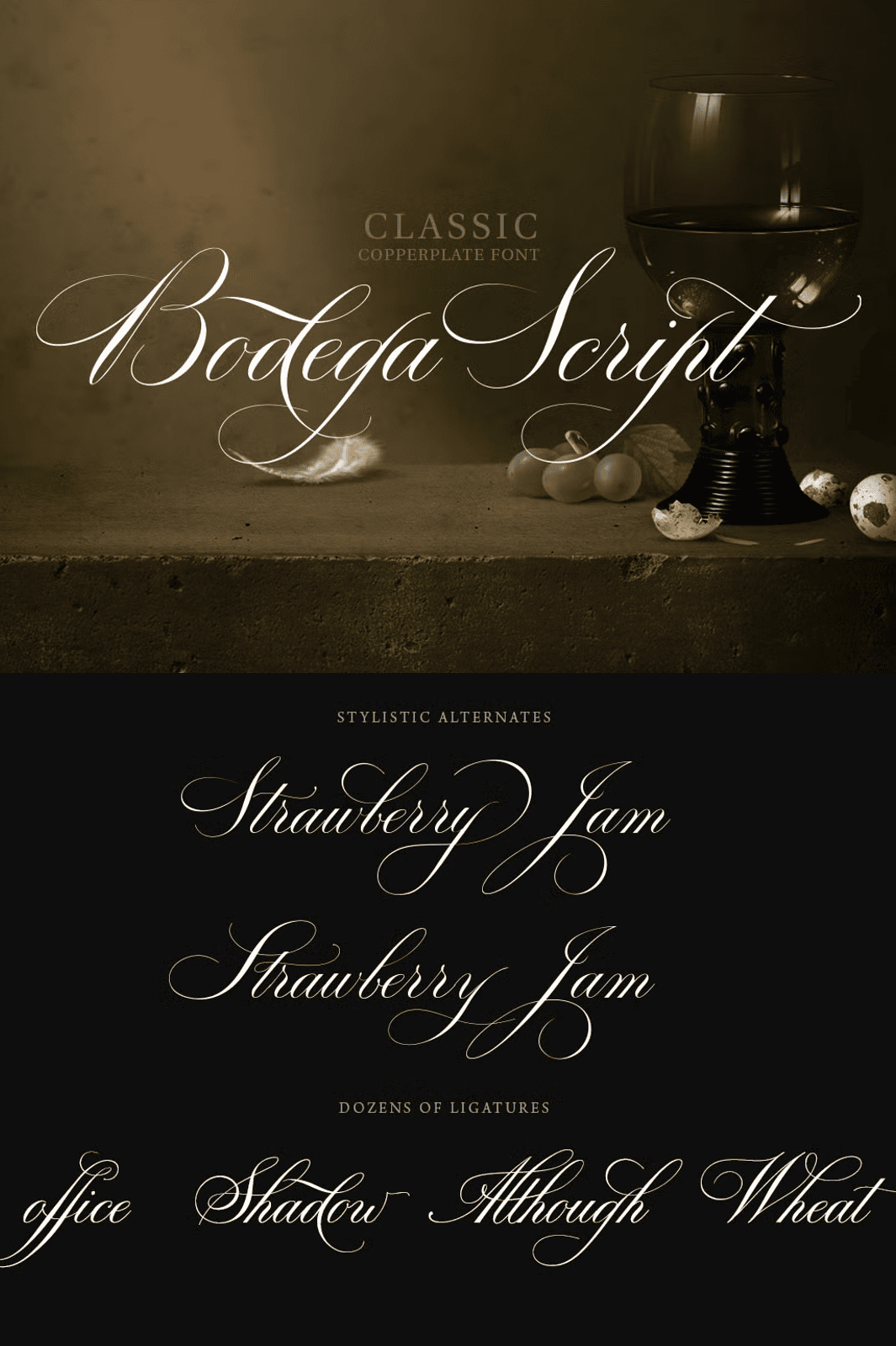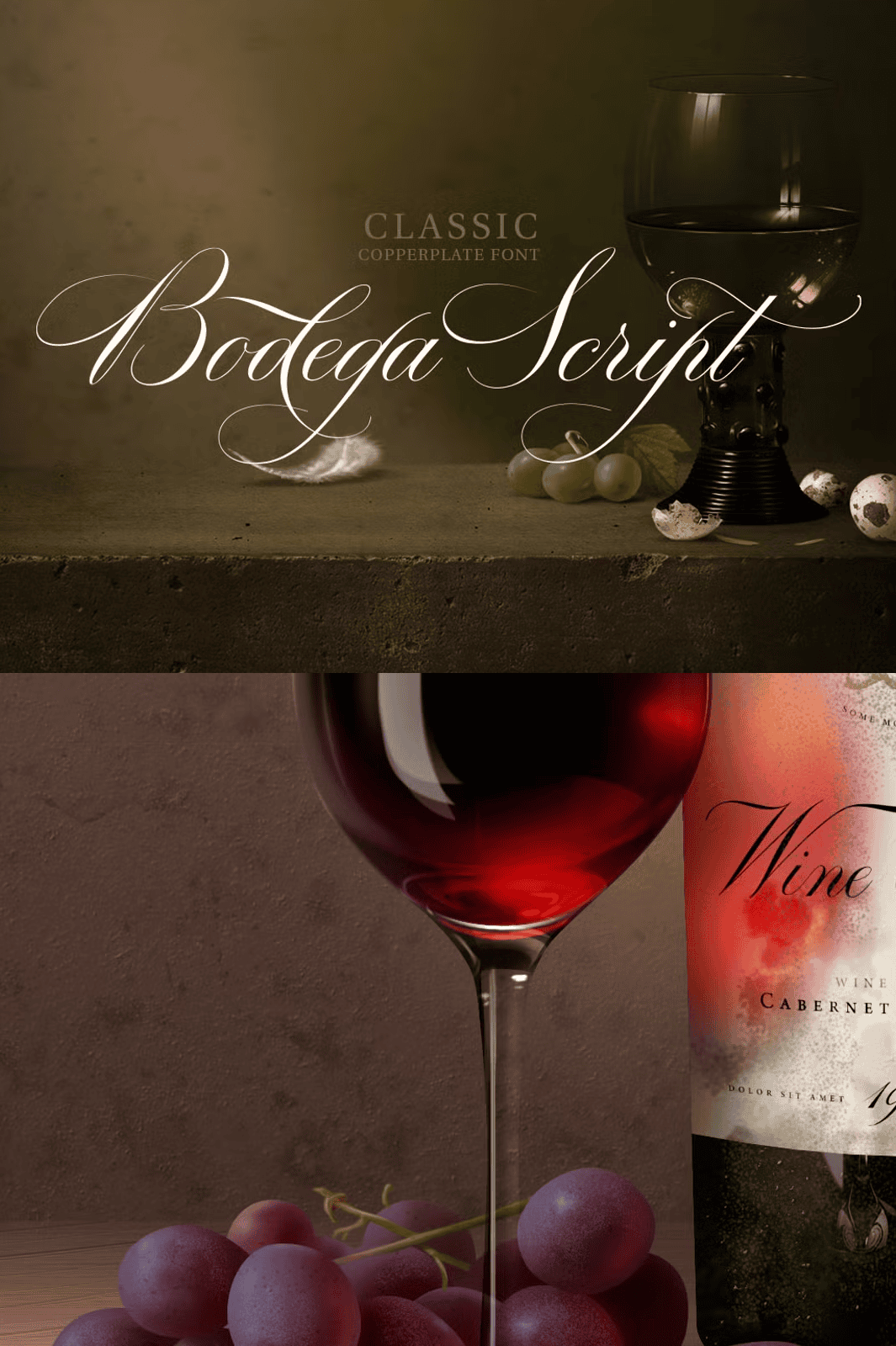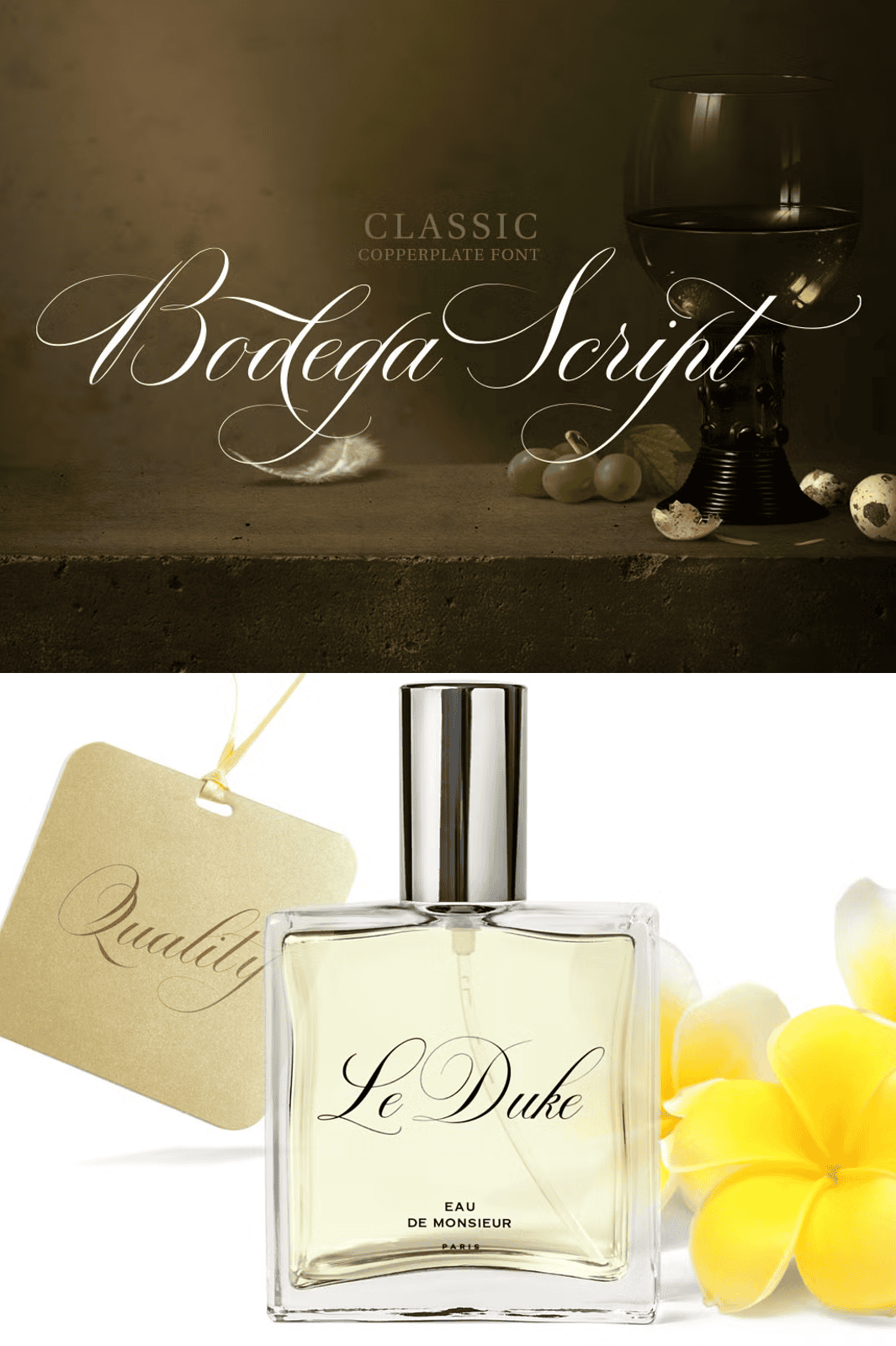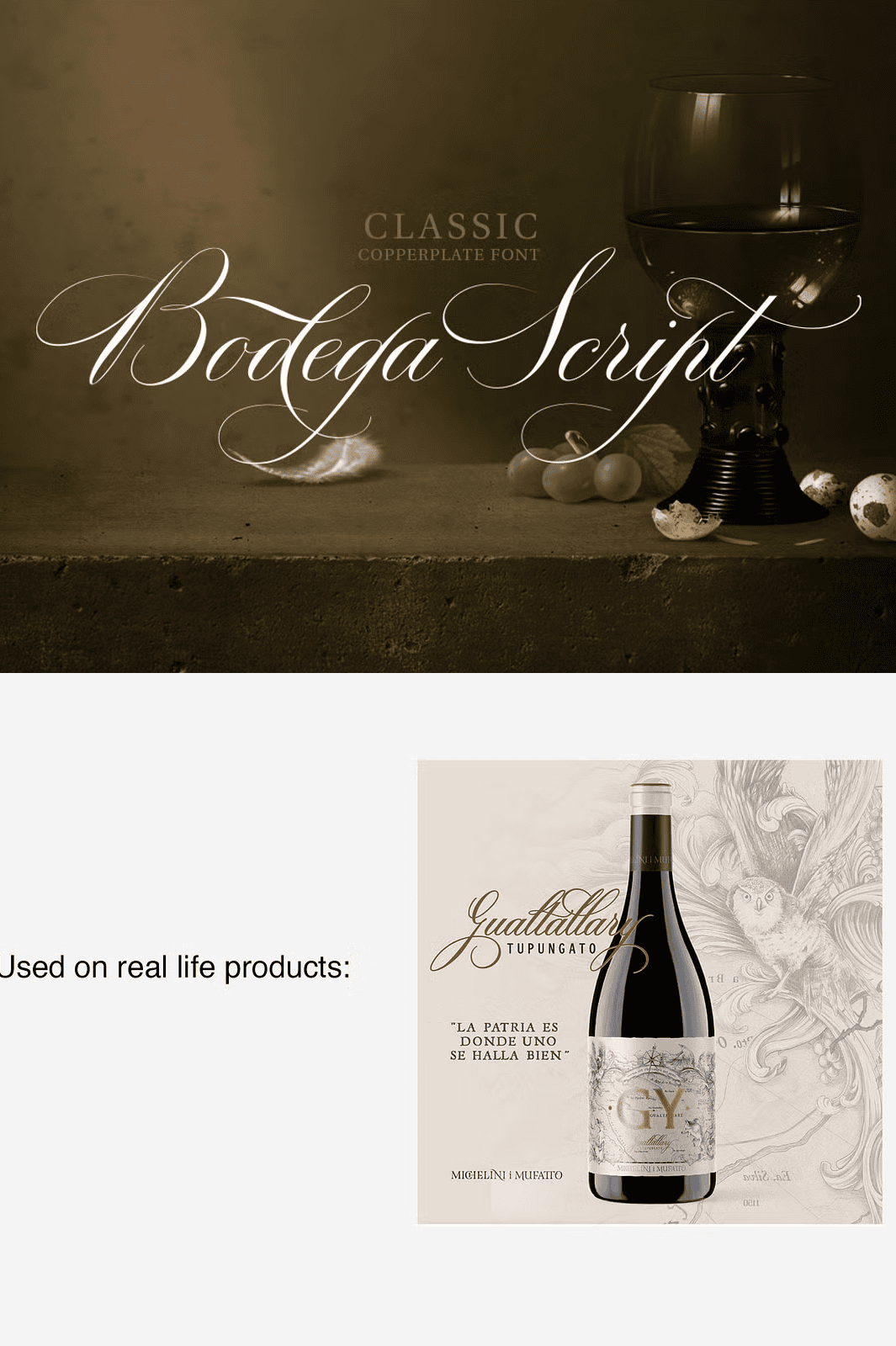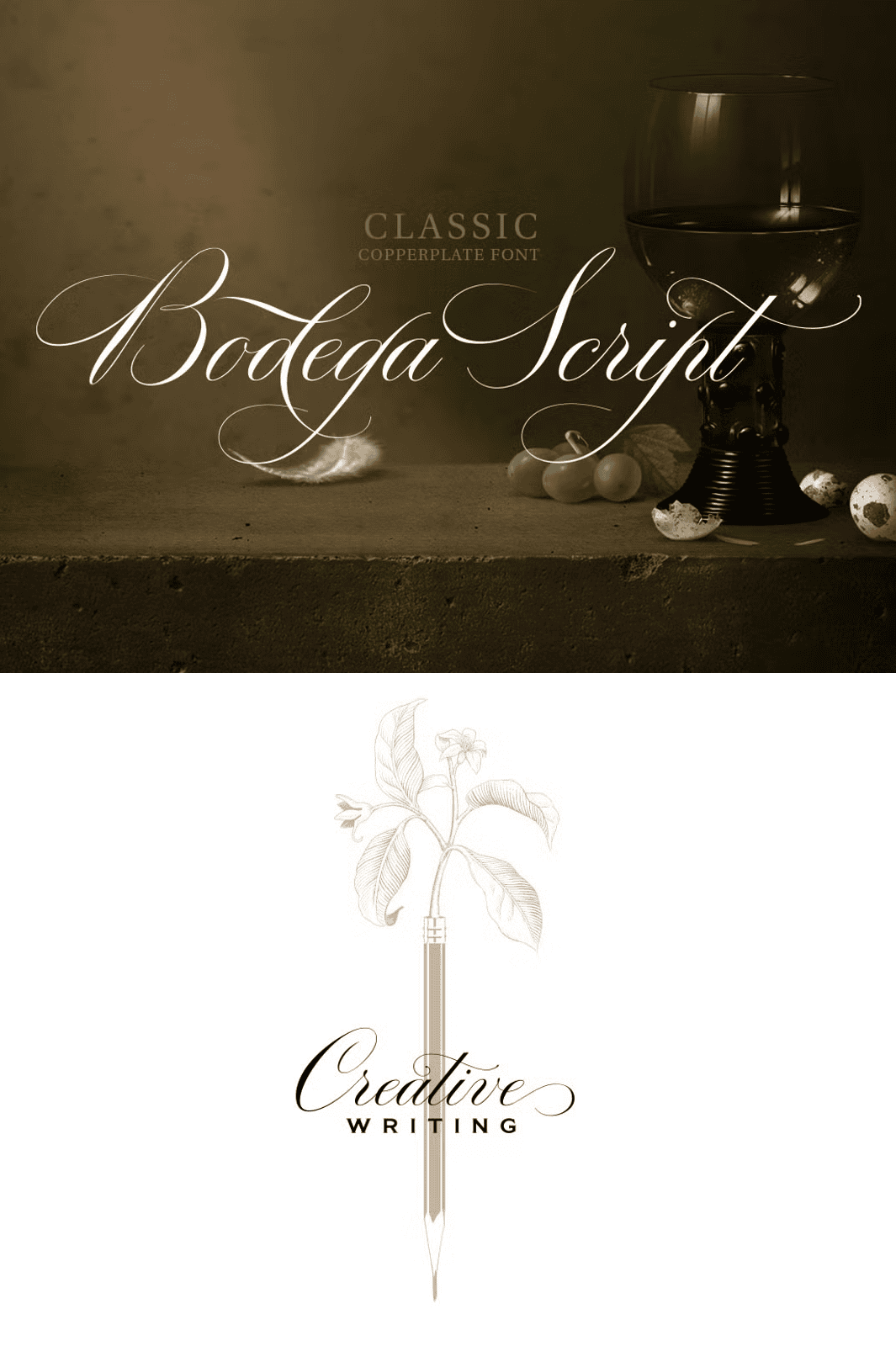
Bodega Script Elegant Wedding Font
Elevate Your Brand with a Script That Speaks of Heritage and Precision
Unveil the artistry of classical calligraphy with **Bodega Script**, a masterfully designed copperplate-style script that defines modern luxury typography. This high-contrast display font captures the essence of 18th-century hand-lettering while delivering flawless performance in today’s digital design landscape. It’s not merely a font — it’s a statement of taste, craftsmanship, and deliberate aesthetic choice.
Whether you’re designing wine labels, high-end fashion packaging, wedding stationery, or elegant branding materials, Bodega Script instantly elevates your work. Its sweeping flourishes, delicate hairlines, and powerful thick strokes create a visual rhythm that commands attention and conveys prestige from the first glance.
Unlock the Full Power of OpenType Features with Rich Typography Control
– **Ligature pairs**: Combine letters like “fi,” “fl,” and “th” with seamless, hand-drawn transitions
– **Stylistic alternates**: Swap standard characters for ornamental versions with a single keystroke
– **Swash endings**: Add dramatic flourishes to uppercase letters by pressing `]` followed by a number (e.g., `love]2`)
– **Contextual alternates**: Automatically adjust letters based on their position in a word for natural flow
Three Variants, Infinite Possibilities — Adapt to Any Design Challenge
Bodega Script isn’t a single font — it’s a typographic system built for versatility. Choose the ideal weight for your project:
– **Light Line**: Delicate and graceful — perfect for minimalist branding, wedding invites, and fine print
– **Medium Line**: Balanced and expressive — ideal for headlines, product packaging, and editorial layouts
– **Bold Line**: Powerful and commanding — designed for banners, posters, and statement signage
Each variant maintains consistent design integrity, ensuring your message remains cohesive across multiple formats and platforms.
Build Brands That Tell Stories — Not Just Sell Products
Use Bodega Script to craft visual identities that resonate emotionally. This is your toolkit for:
– Designing **luxury wine and spirits labels** that feel handcrafted and exclusive
– Creating **fashion brand identity kits** with a classic, timeless appeal
– Crafting **premium stationery**, including business cards, letterheads, and envelopes
– Producing **wedding invitations**, save-the-dates, and guest books with authentic charm
– Developing **brand storytelling visuals** for boutique hotels, spas, and artisanal retailers
This font isn’t just about letters — it’s about legacy, emotion, and the power of visual narrative.
Complete Language Support for Global Appeal
Bodega Script is more than a font — it’s a design philosophy. It challenges you to think deeper, to design with intention, to create work that lingers in memory long after the message is read. Embrace elegance. Command attention. Let every line tell a story. Let your creativity reach beyond perfection — into true refinement.